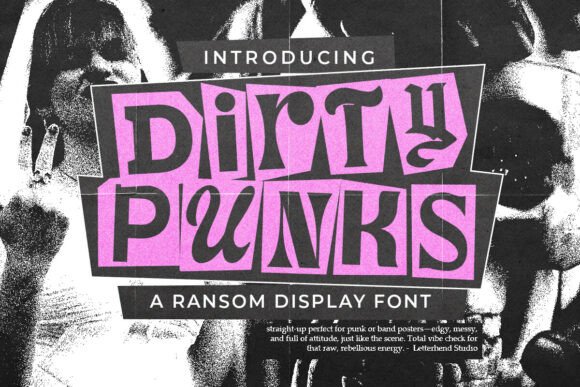
Dirty Punks Font: Rebellious & Bold Display Typography
About the Dirty Punks Font
We are excited to introduce Dirty Punks Font, a must-have typeface for any serious designer. Dirty Punks captures the energy of punk vibes with its cut-and-paste letterforms. The combination of upper and lowercase letters offers flexibility in creating unique designs that break traditional rules. This font is perfect for logos, bold advertising, zines, album covers, and other creative works that need a rebellious, DIY touch. It’s also great for adding a nonconformist flair to formal items like stationery, packaging, and event invitations.
Its raw, energetic aesthetic makes it ideal for projects demanding a bold statement—think edgy fashion brands, rebellious music promotions, or street art-inspired designs. However, its highly stylized letterforms are less suitable for extended text blocks; legibility suffers in body copy or UI applications.
Pairing Dirty Punks with a clean sans-serif like Futura for supporting text provides a strong contrast, balancing its chaotic energy. Alternatively, a classic serif font such as Garamond can add unexpected sophistication, highlighting the juxtaposition between rebellion and refinement. For a more cohesive, aggressive feel, consider pairing it with a geometric sans-serif.
Dirty Punks projects a rebellious, high-energy personality, perfectly suited for brands that embrace nonconformity and visual disruption. Avoid using it where readability and refined elegance are paramount.
Dirty Punks Font Example